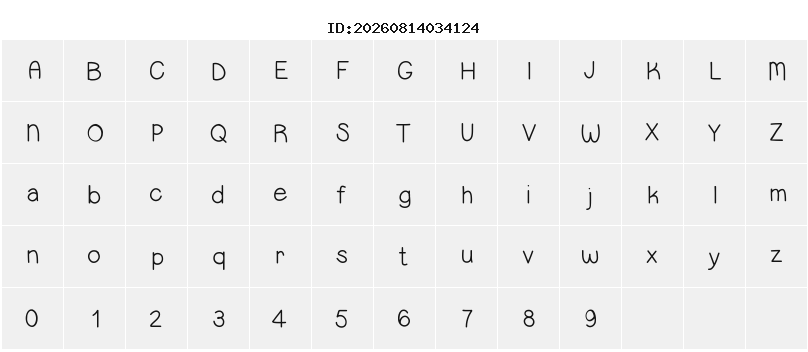
Sweetness.ttf is a modern, elegant sans-serif font designed for ultimate readability and visual harmony. Perfect for branding, headlines, web design, and print materials.